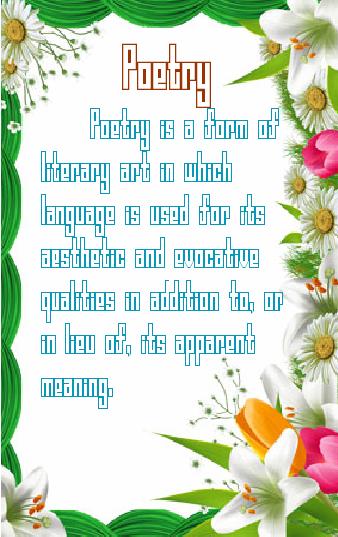
en tall
Trying to make a tall font, I came out with this. This is best viewed at pixel size. Also view it with sample text.
I created this in a quick time. But this has come out well than I expected.
Good looking design ... I love the j :) 10/10